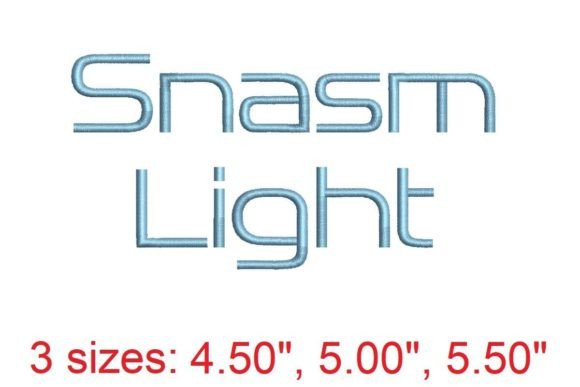
Snasm Light: Elegant Embroidery Font
As an embroidery designer with years of experience, I've seen countless fonts and styles come and go. Snasm Light stands out as a versatile and refined choice for adding sophistication to custom apparel. Whether you're working on a limited sweatshirt drop or crafting unique boutique merchandise, this font offers a balance of style and practicality that small clothing brands and Etsy sellers will appreciate.
First Impressions: A Delicate Balance of Style and Substance
From the moment I viewed the Snasm Light design, I was struck by its clean lines and subtle character. It carries a modern, minimalist vibe that feels both elegant and approachable. The font’s layout is well-proportioned, making it ideal for a variety of applications—from hoodie chest placements to sleeve accents. Its detail level is just right; not too intricate to overwhelm, but enough to add visual interest without complicating the embroidery process.
The stitching personality of Snasm Light is smooth and consistent, which is crucial when working with machine embroidery designs. It doesn’t feel overly delicate, which is a relief for those concerned about durability. This makes it a solid choice for commercial embroidery, especially when considering how it will hold up through repeated washes and wear.
Snasm Light in Action: Sweatshirt Embroidery and Beyond
When applied to neutral-colored sweatshirts, Snasm Light shines with a quiet confidence. It adds a touch of class without overpowering the fabric. On dark fabrics, the font maintains its clarity, and the contrast between thread colors and background can be adjusted to suit different aesthetics. For pastel hues, it brings a soft, feminine flair that complements cozy seasonal apparel perfectly.
For oversized hoodies, Snasm Light works beautifully as a back design. Its size and spacing allow it to scale well without looking cramped or stretched. As a sleeve accent, it provides a subtle yet stylish detail that elevates the overall look of the garment. Whether you’re creating a limited-edition drop or designing for a boutique brand, this font adapts well to various styles and occasions.
Practical Considerations for Designers
One of the first things I considered was how Snasm Light would perform with different thread colors. Its simplicity allows for a wide range of color options, making it easy to match brand palettes or create eye-catching contrasts. However, it’s important to choose thread colors that complement the fabric texture—especially for handmade products where every detail matters.
Stitch density is another key factor. Snasm Light has a moderate density that should work well with most fabrics, but for thicker materials, you may need to adjust stabilizer choices to prevent puckering. Hoop size is also worth noting; while the exact dimensions aren’t specified, the font’s layout suggests it should fit comfortably within standard hoop sizes for most embroidery machines.
Small-size readability is a concern for any font, but Snasm Light handles it well. Even when scaled down for tags or smaller placements, it remains legible and retains its charm. This makes it suitable for custom apparel branding and printable mockups that need to look sharp in both digital and physical formats.
Impact on Branding and Customer Perception
For small shop products and Etsy listings, the quality of the finished product plays a huge role in customer trust. Snasm Light contributes to a polished, professional appearance that can elevate the perceived value of your handmade product. Its clean, modern aesthetic aligns well with current trends in lifestyle product photography and boutique merchandise.
As a digital embroidery file, Snasm Light offers flexibility for designers who want to experiment with different layouts and placements. It’s a valuable addition to design assets, especially for those focusing on custom apparel and seasonal collections. When used effectively, it can enhance brand identity and increase customer engagement through visual recognition.
Final Thoughts: A Versatile Choice for Creative Entrepreneurs
Overall, Snasm Light is a strong contender for anyone looking to add a touch of elegance to their embroidery projects. Its compatibility with Brother, Babylock, and other machines makes it accessible to a wide range of users. While specific details like stitch count and hoop size aren’t provided, it’s always wise to review these aspects before production to ensure they meet your needs.
Whether you're designing for a Back To School collection or creating cozy seasonal apparel, Snasm Light offers a refined, adaptable solution that supports the goals of small clothing brands, embroidery shops, and creative entrepreneurs. With its balance of style and functionality, it’s a font that deserves a place in your design toolkit.